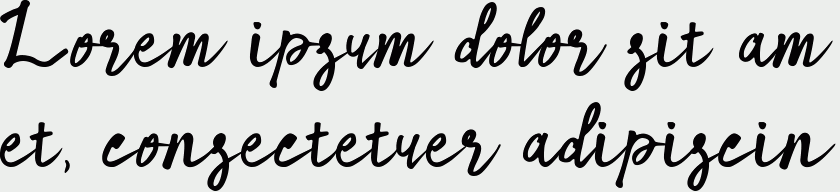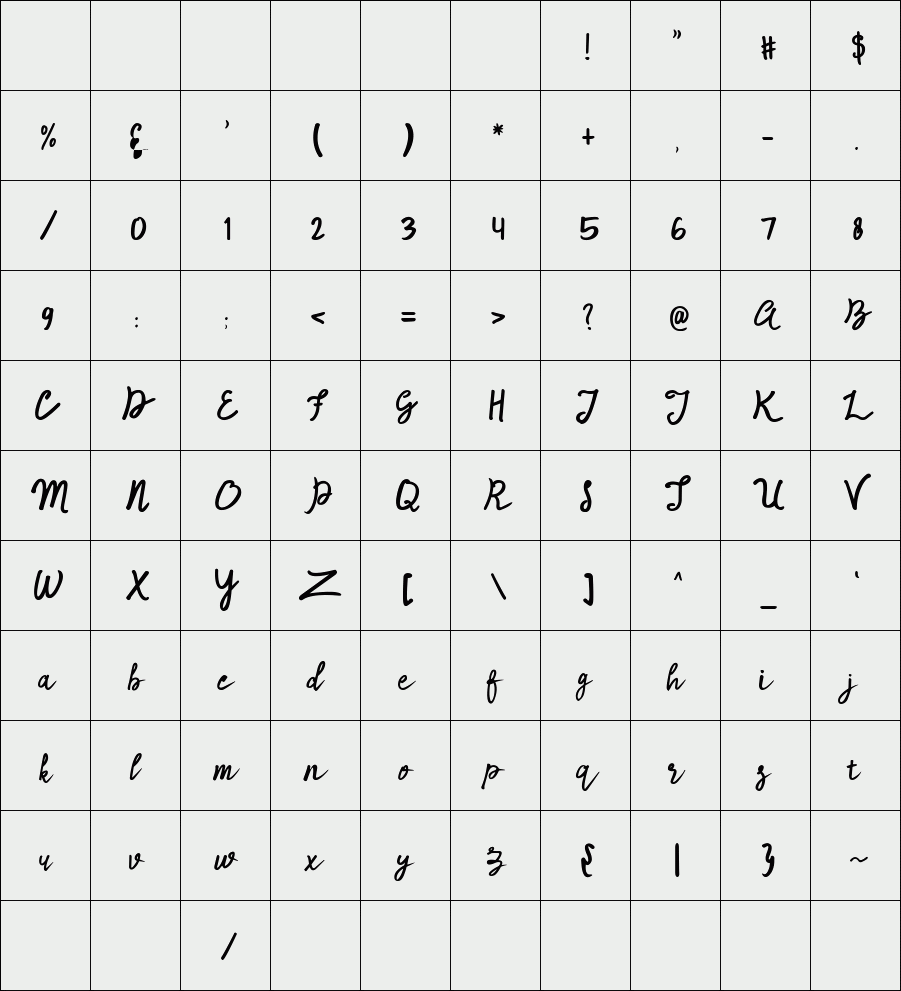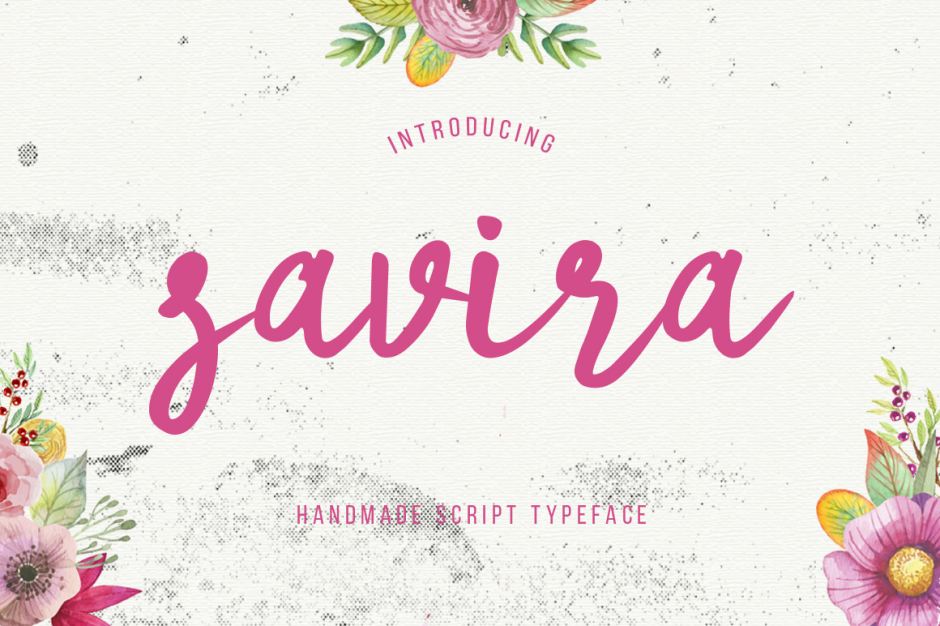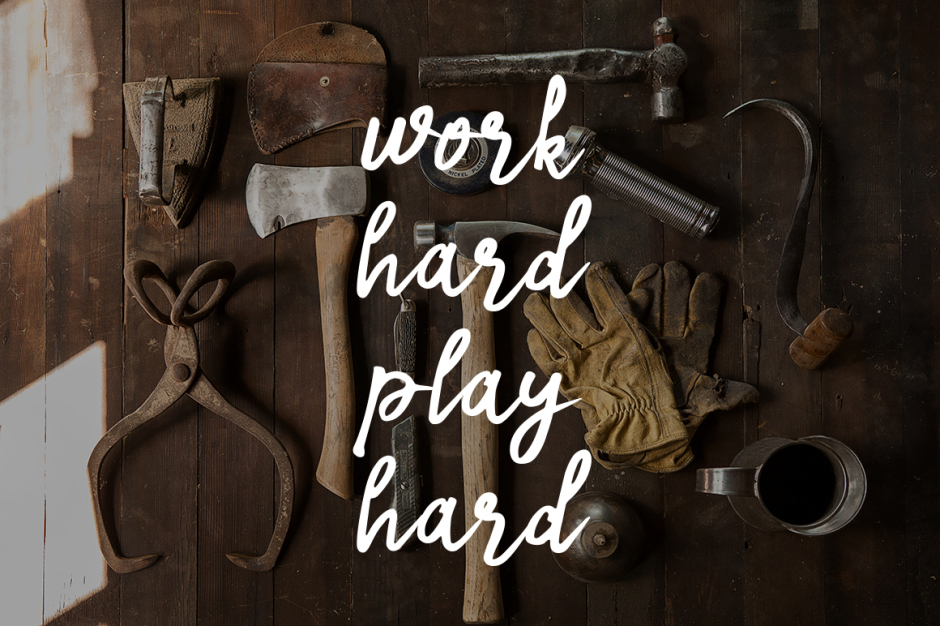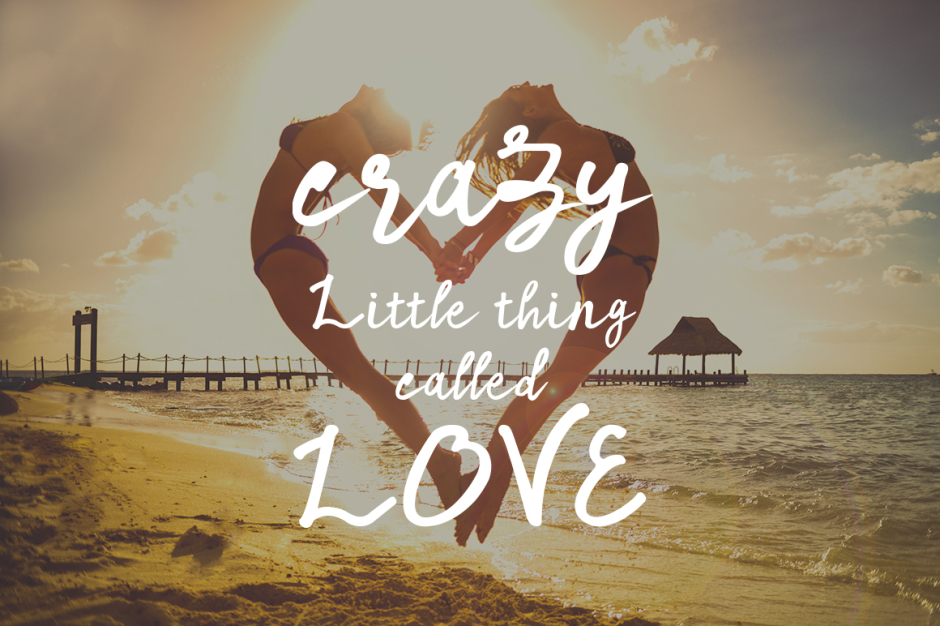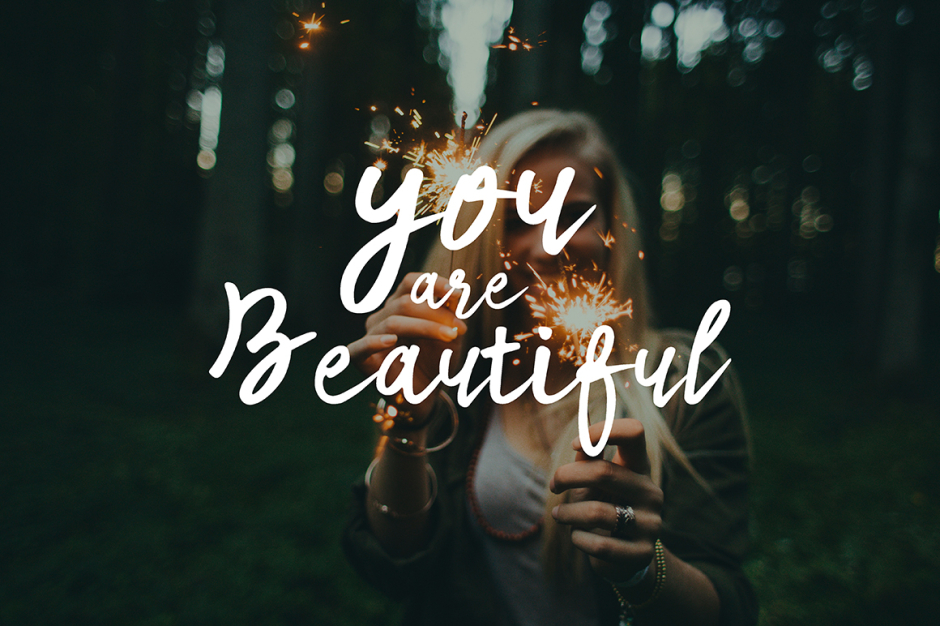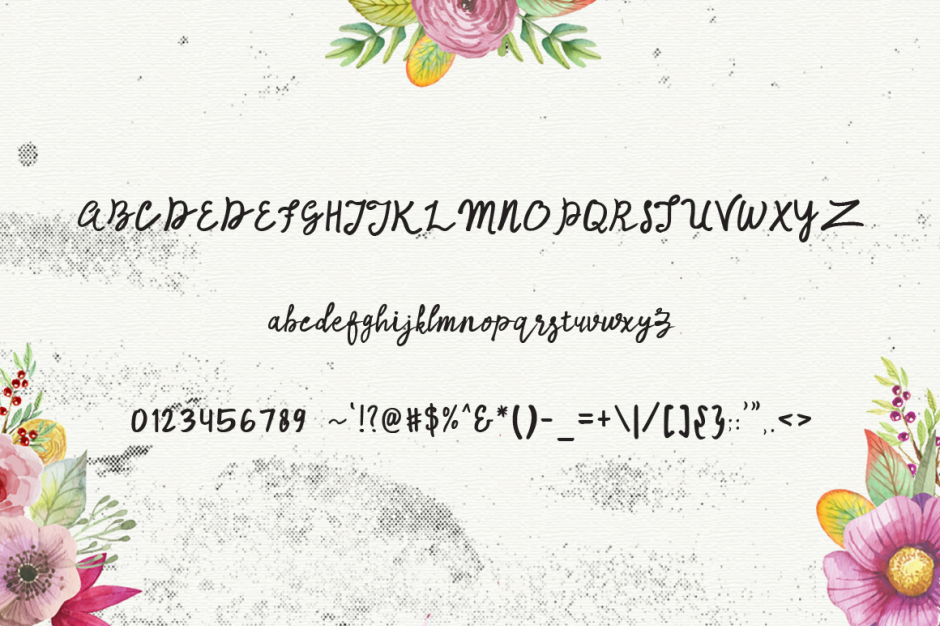
Savira
Savira Script is a beautiful handmade typeface. Can be used for card design, headline, poster, logos, wedding invitation, t-shirt, letterhead, lable, news, posters, badges and much more.